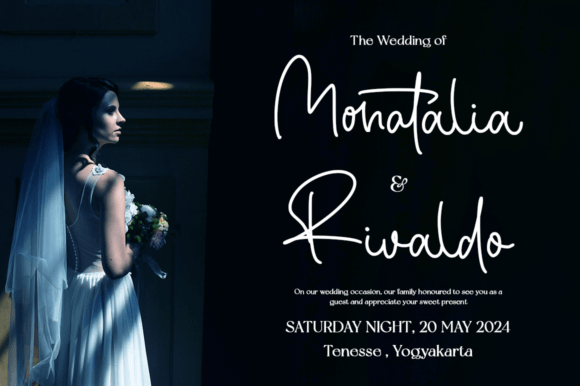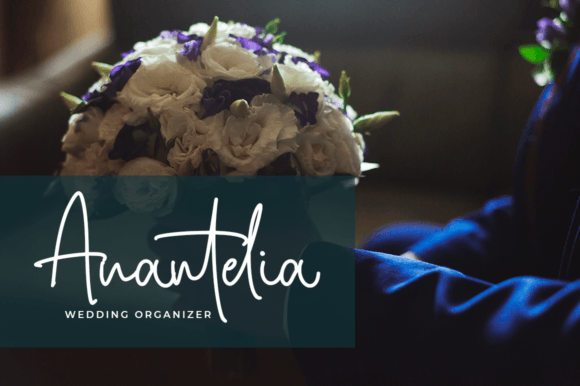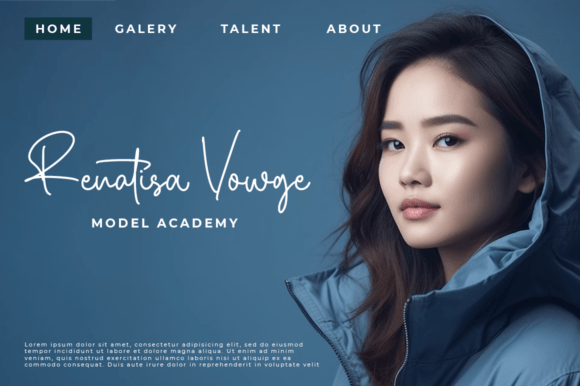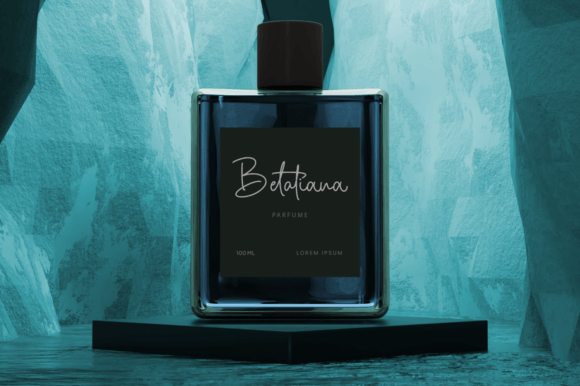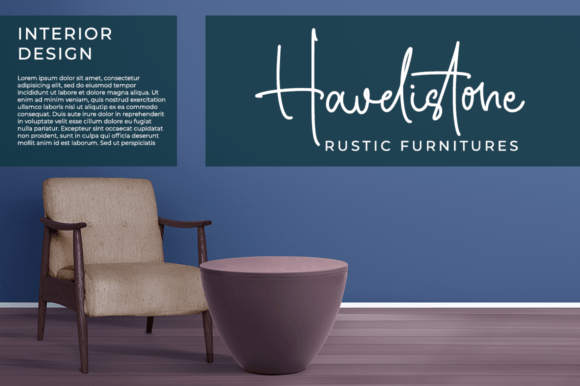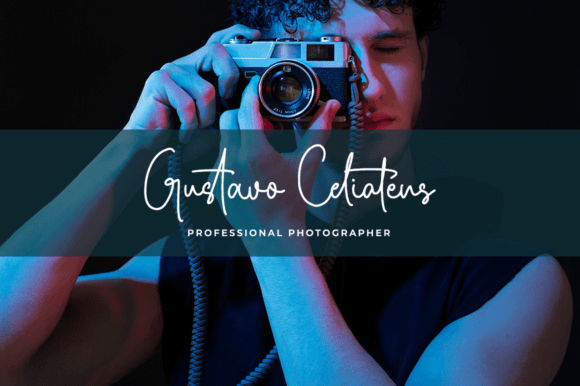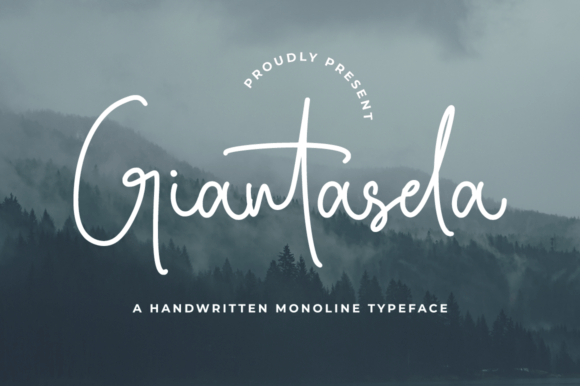
Introducing Giantasela Font: Elevate Your Designs with Elegant Script Typography
In the world of typography, a well-crafted font can make all the difference in elevating your design projects from ordinary to extraordinary. For designers and crafters seeking a touch of elegance and sophistication, Giantasela Font is an exceptional choice. This beautiful script font boasts a contemporary atmosphere, impeccable form, and a balanced, varied aesthetic that is sure to enhance the beauty of your creations.
Inspired by Timeless Classic Calligraphy
Giantasela Font draws inspiration from the timeless classics of calligraphy, bringing a sense of tradition and refinement to your designs. The font’s elegant lines, curves, and swashes evoke the feeling of hand-crafted calligraphy, perfect for projects that require a personal touch. Whether you’re working on a logo, branding materials, wedding invitations, or any other design project, Giantasela Font is sure to add a level of sophistication and poise.
Balanced and Varied Typography
One of the standout features of Giantasela Font is its perfectly balanced and varied typography. The font’s stroke widths are carefully crafted to be neither too thin nor too thick, creating a harmonious visual flow that is easy on the eyes. This balance ensures that your text remains legible and stylish, making it ideal for a wide range of applications, from digital media to print materials.
Giantasela Font is PUA (Private Use Area) encoded, which means that you can access all of the glyphs and swashes with ease. This feature allows you to unlock the full potential of the font, giving you the creative freedom to experiment with different styles and combinations. With Giantasela Font, you can effortlessly add flourishes, ligatures, and other typographic elements to enhance your designs and make them truly unique.
Giantasela Font is a versatile and practical choice for designers and crafters working on a variety of projects. Whether you’re creating:
- Logos and branding materials that require a touch of elegance
- Wedding invitations, stationery, and other paper goods
- Digital media, such as social media graphics and website headers
- Signs, banners, and other display materials
Giantasela Font is the perfect companion to help you achieve your design goals.
Key Features of Giantasela Font
Here are some of the key features that make Giantasela Font an exceptional choice for your design projects:
- Elegant script typography with a contemporary atmosphere
- Inspired by timeless classic calligraphy
- Balanced and varied typography for optimal legibility and style
- Perfect for a wide range of design applications, from digital media to print materials
In conclusion, Giantasela Font is an exceptional addition to any designer’s or crafter’s toolkit. With its elegant script typography, balanced and varied aesthetic, and PUA encoding, this font is sure to elevate your design projects and add a touch of sophistication and poise. Whether you’re working on a logo, wedding invitation, or digital media project, Giantasela Font is the perfect choice for those seeking a high-quality, stylish, and versatile font.